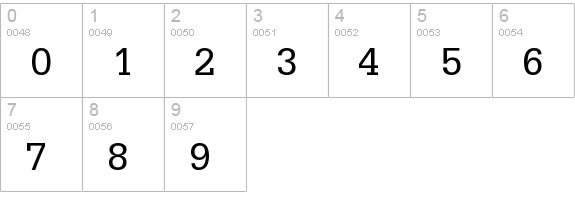
Metron SSi font is a modern and sleek typeface that exudes sophistication and professionalism. With its clean lines and sharp edges, this font is perfect for adding a contemporary touch to any design project. The versatile nature of Metron SSi allows it to be used in a variety of contexts, from print materials to digital creations. What makes Metron SSi even more appealing is that it is available for free download at FontsMarket.com. This means that you can easily access this stylish font without any cost, making it a valuable addition to your font collection. Whether you are a designer looking to elevate your projects or a business seeking a fresh look for your branding, Metron SSi is the perfect choice. Download it today and discover the endless possibilities of this stunning font.